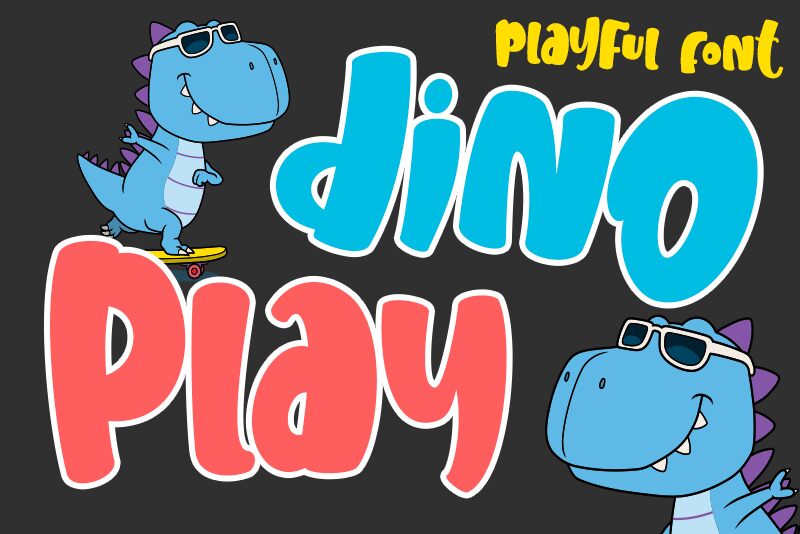
DinoPlay, the extra-bold display font by Stefani Letter, is every designer's dream come true. This cartoon-style font takes your projects to the next level with its playful and fun aesthetic. It's perfect for children's books, party invitations, and any project that needs an injection of personality. DinoPlay is also versatile enough to be used for branding and marketing materials such as logos or product packaging. With its thick strokes and bold curves, DinoPlay is sure to make a statement in any design project. Get ready to let your creativity roar with DinoPlay!